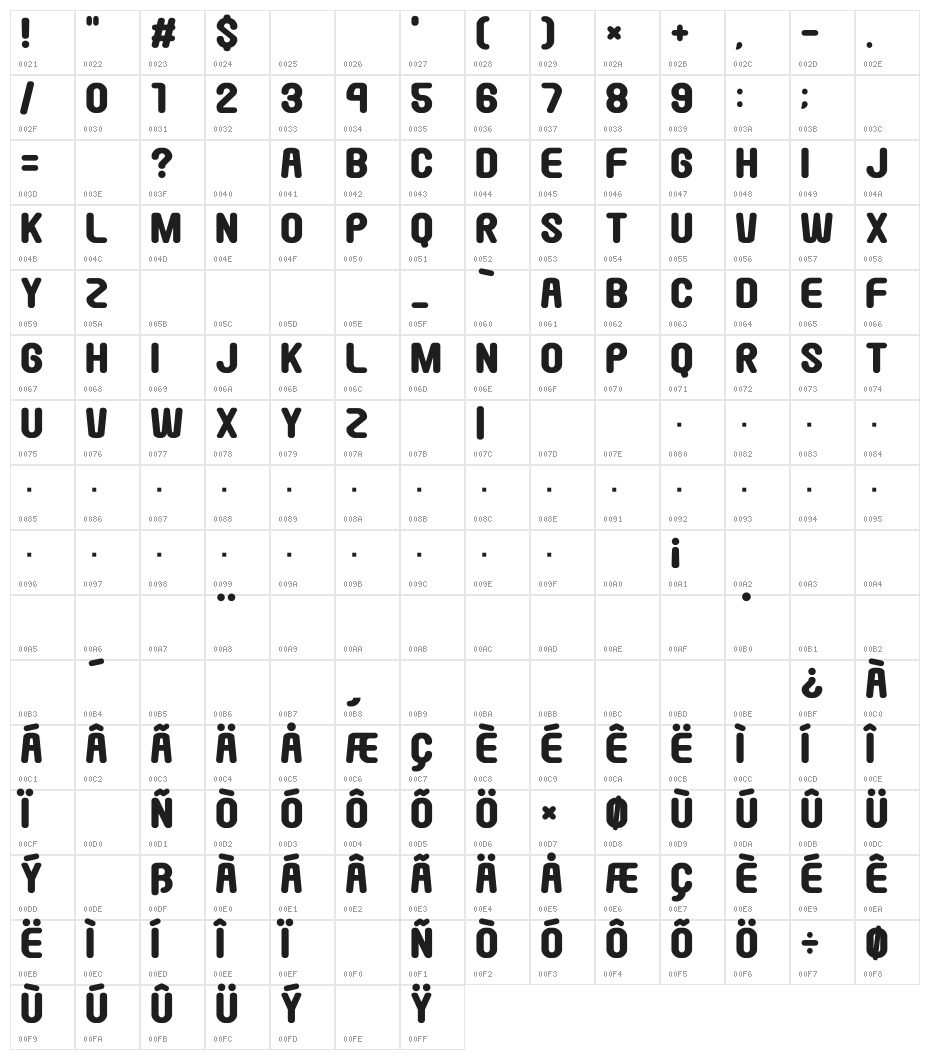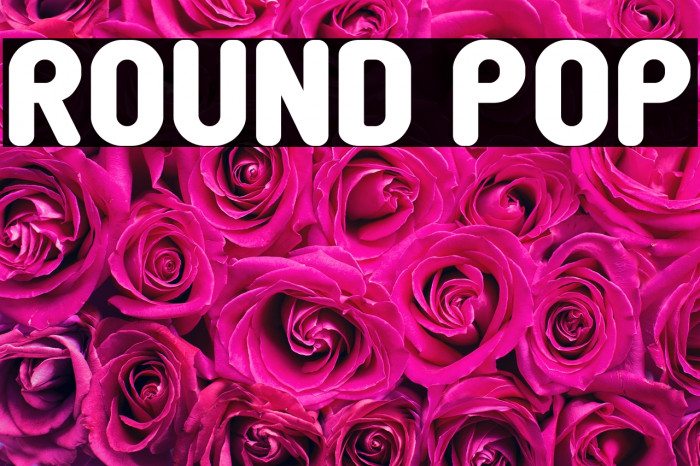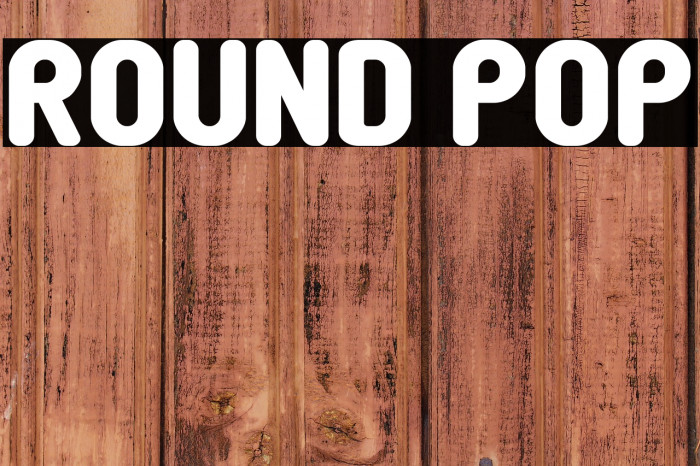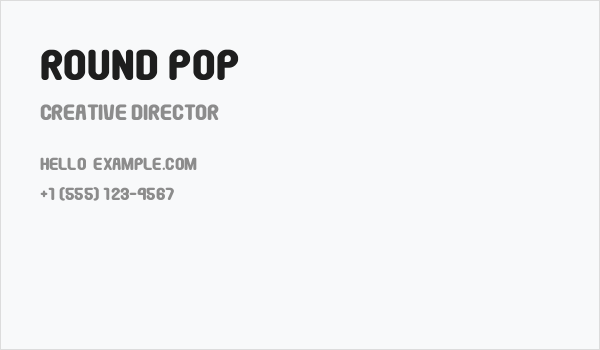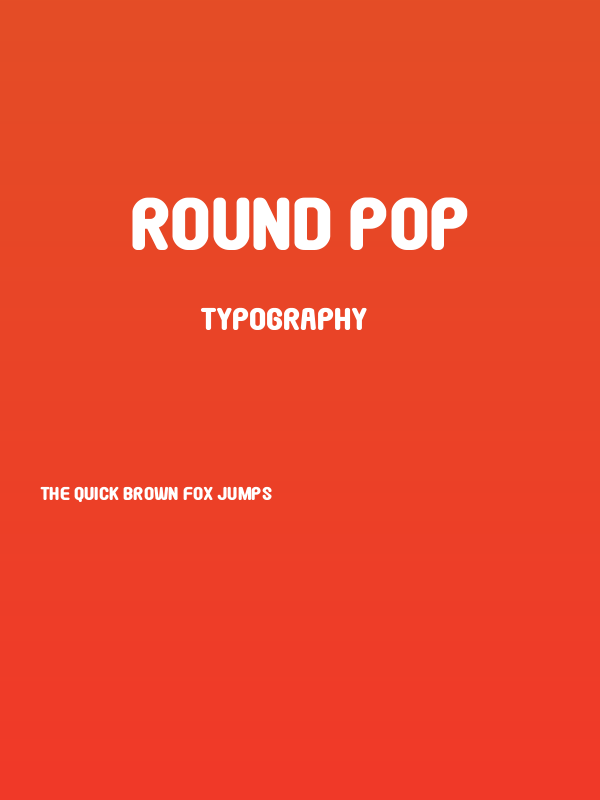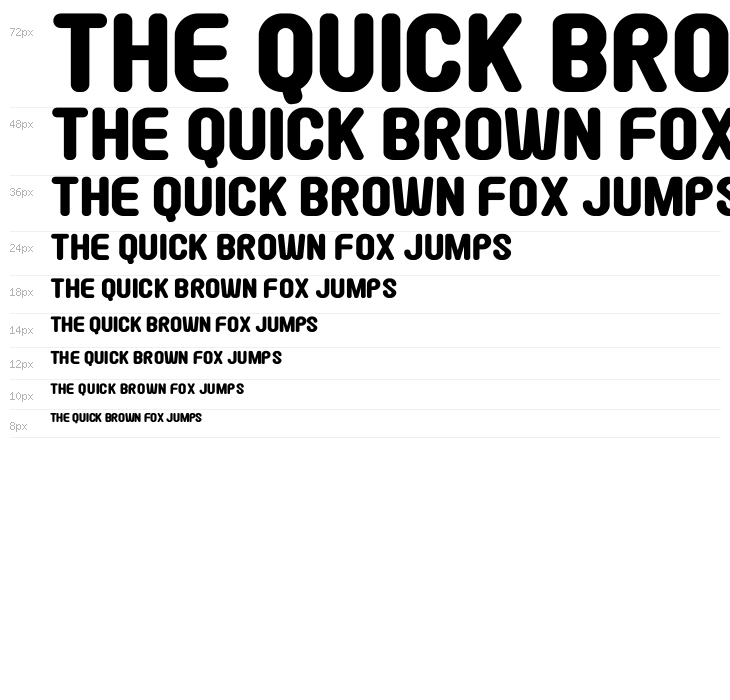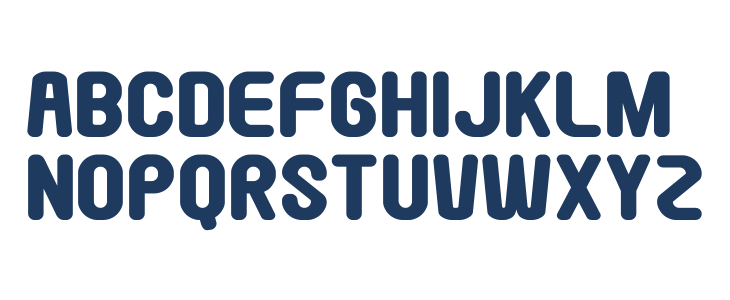
Round Pop Font
Round Pop Description
This font features a bold, rounded style with a playful and modern aesthetic. The characters are uniformly thick, providing a consistent and cohesive look across all letters and numbers. The rounded edges give it a friendly and approachable feel, making it suitable for a variety of creative projects. The font maintains a balanced weight throughout, ensuring readability while adding a touch of uniqueness. Its design is versatile enough to be used in both digital and print media, offering a contemporary vibe that can enhance branding, advertising, and more.
| Proposed Projects | Ideal for branding, advertising, children's books, and playful design projects. |